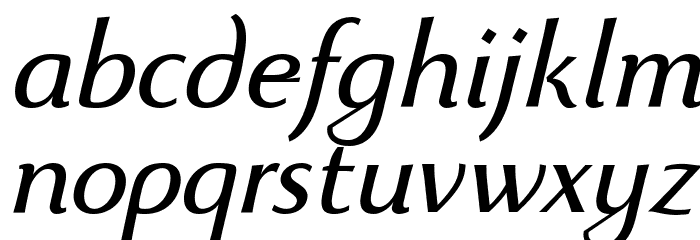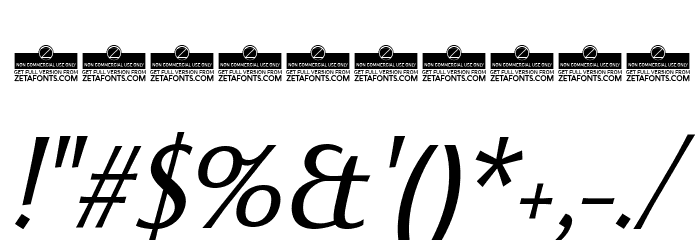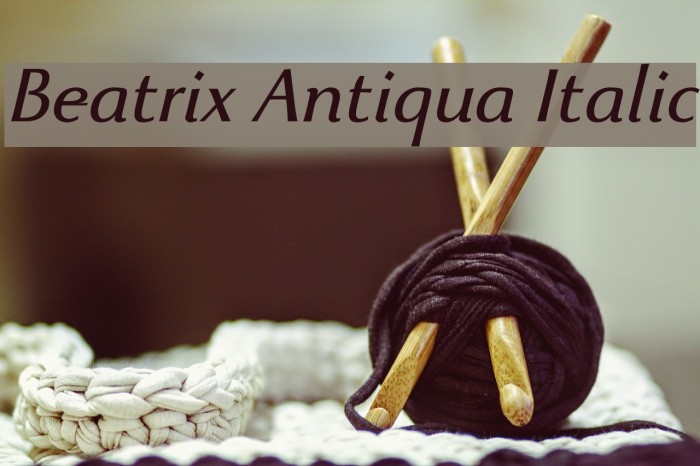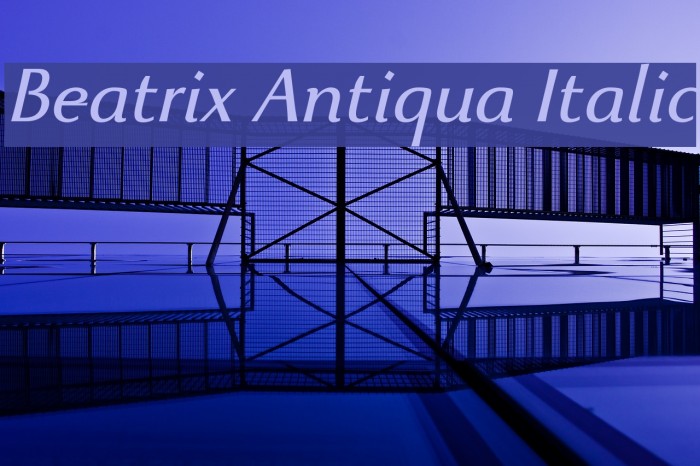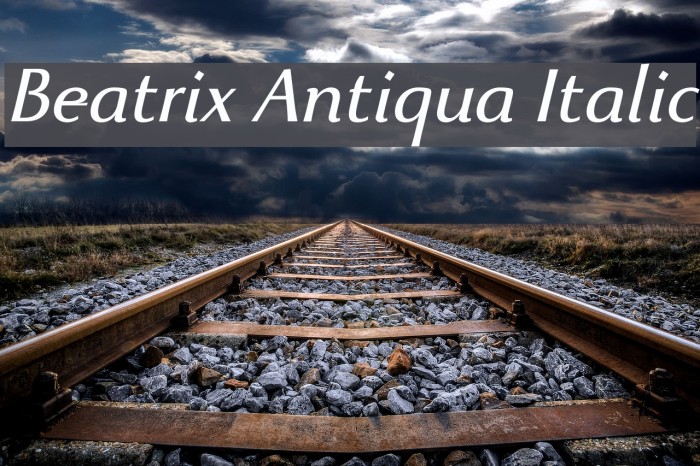
Beatrix Antiqua Italic Font
This elegant serif font features a classic italic style with a refined and sophisticated appearance. The characters exhibit a graceful slant, enhancing the font's fluidity and elegance. The strokes are moderately contrasted, providing a balanced and readable text. The uppercase letters are tall and slightly narrow, while the lowercase letters maintain a consistent flow with smooth curves and delicate serifs. The numerals and special characters are designed to complement the overall style, making it suitable for a variety of formal and artistic applications.
An elegant serif italic font with a classic and refined style.
- Proposed Projects: Ideal for use in formal invitations, elegant branding, editorial design, and artistic projects requiring a touch of sophistication.
- Overall Style: Classic